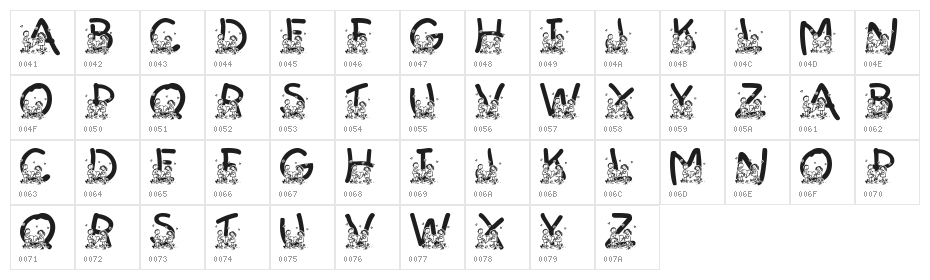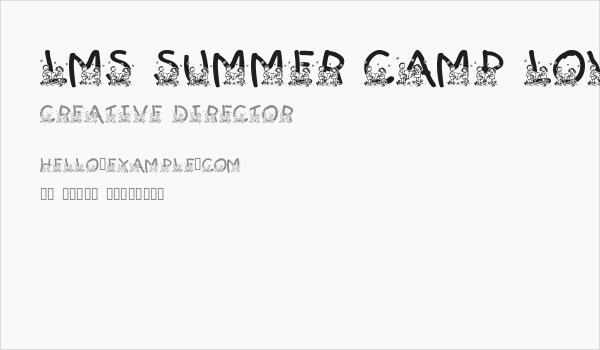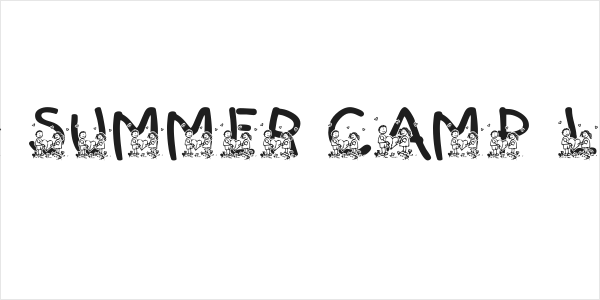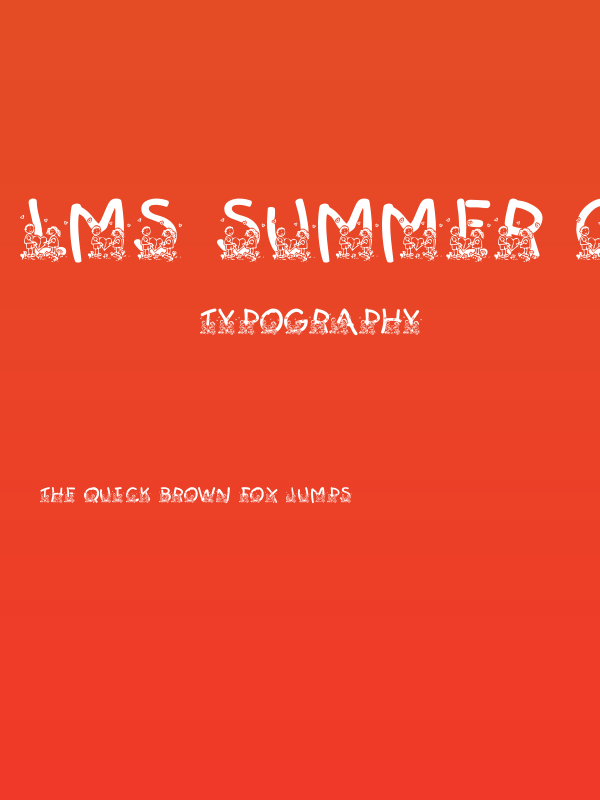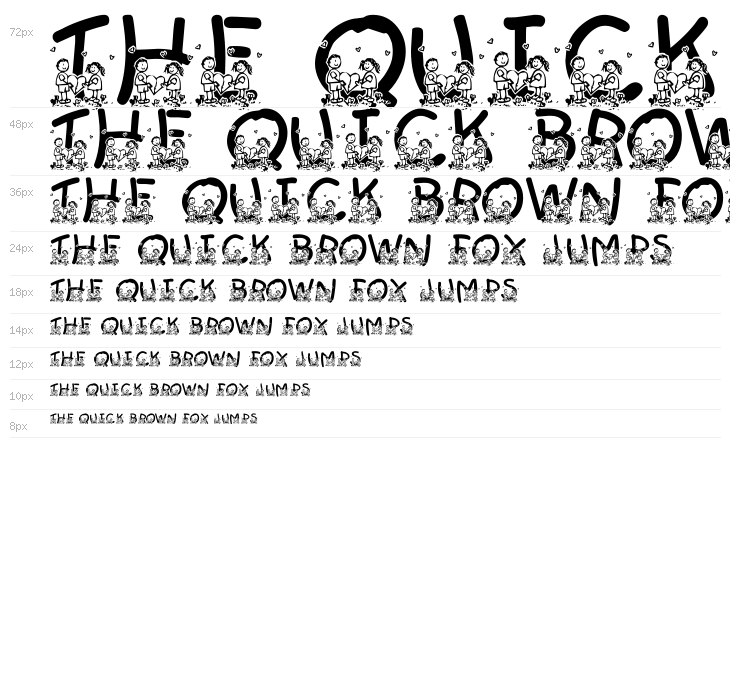
LMS Summer Camp Love Font
LMS Summer Camp Love Description
This playful and decorative font features whimsical, hand-drawn elements integrated into each letter, creating a lively and engaging appearance. The characters are adorned with intricate doodles and patterns, adding a unique and artistic flair. The bold strokes and detailed embellishments make it stand out, perfect for projects that require a fun and creative touch. The font maintains a consistent style across all characters, ensuring a cohesive look. Its distinctiveness makes it ideal for capturing attention and conveying a sense of joy and creativity.
| Proposed Projects | Ideal for children's book covers, playful event invitations, creative posters, and artsy branding materials. |